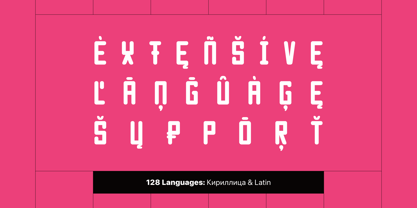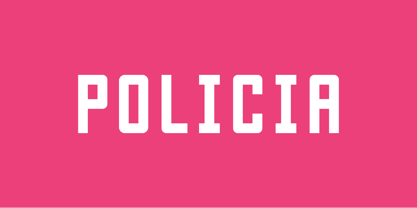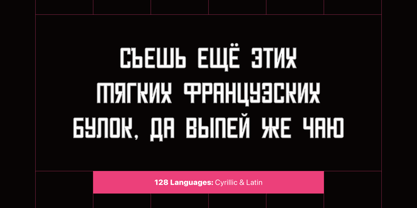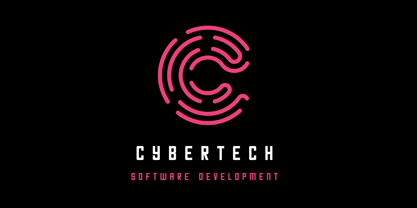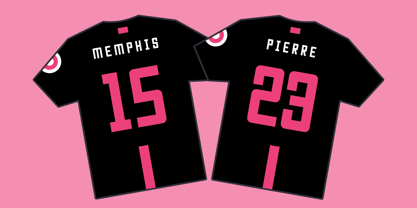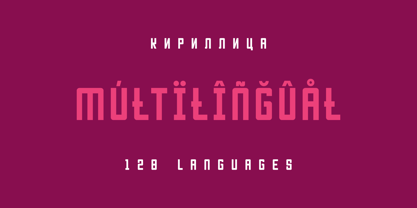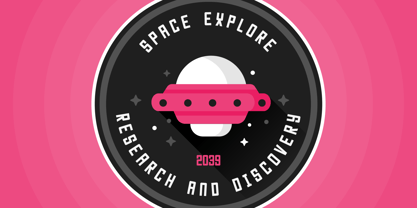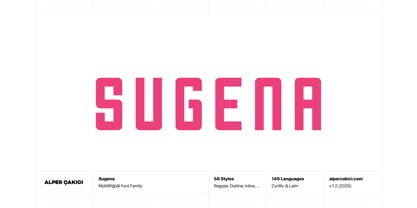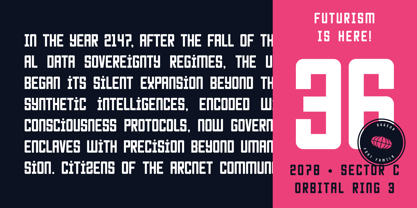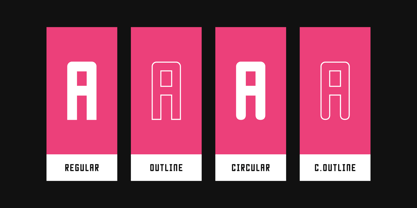
Sugena
The Sugena Font Family was designed by Alper Çakıcı and published by AlperCakici. Sugena contains 58 styles and family package options. More about this family
🚀 Sugena – A Versatile Modern Sans-Serif System Sugena is a clean, contemporary sans-serif type family built for designers who need flexibility, clarity, and a subtle futuristic edge. Based on strong geometric construction and refined modern forms, Sugena delivers a complete typographic system suitable for both experimental and professional use. With 58 carefully crafted styles, Sugena ranges from minimal and clean to expressive textured variations—allowing designers to stay visually consistent while exploring multiple creative directions. Whether you’re designing branding systems, UI/UX interfaces, tech products, motion graphics, posters, or large-scale display typography, Sugena adapts effortlessly. ✨ Why Designers Choose Sugena • 58 Styles – Clean, Angular, Circular, Rounded, Brush, Rough, Inline, Rimmed, Pencil, Noise, Eroded, Outline • Complete Italics – Matching italic styles for every variant • Modern Sans-Serif Design – Geometric, precise, and subtly futuristic • Highly Versatile – Ideal for branding, tech, gaming, editorial, UI, and motion • Screen & Print Optimized – Sharp readability across all sizes and media • 128 Languages Supported – Extended Latin + Cyrillic for global projects 🌍 Multilingual Support Sugena supports 128 languages, making it ideal for international branding and cross-platform use.